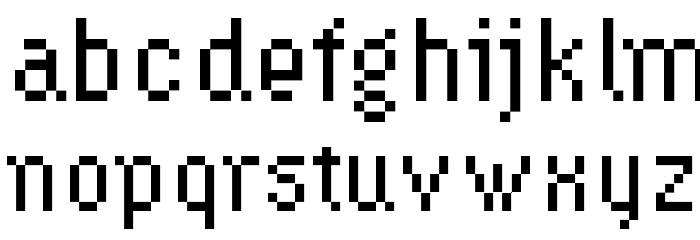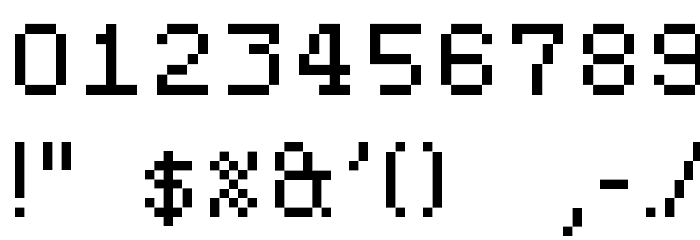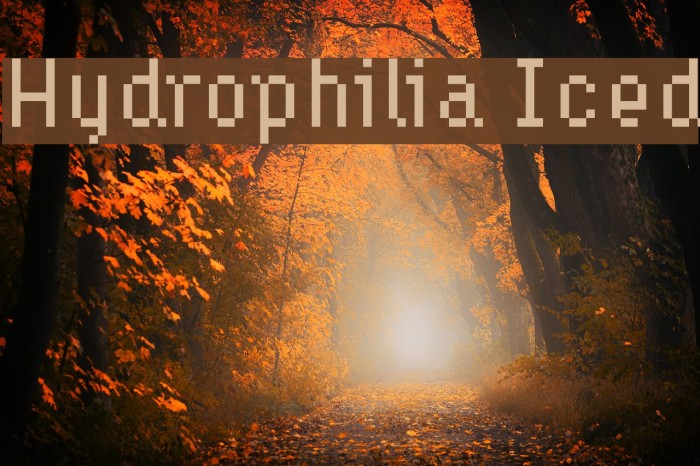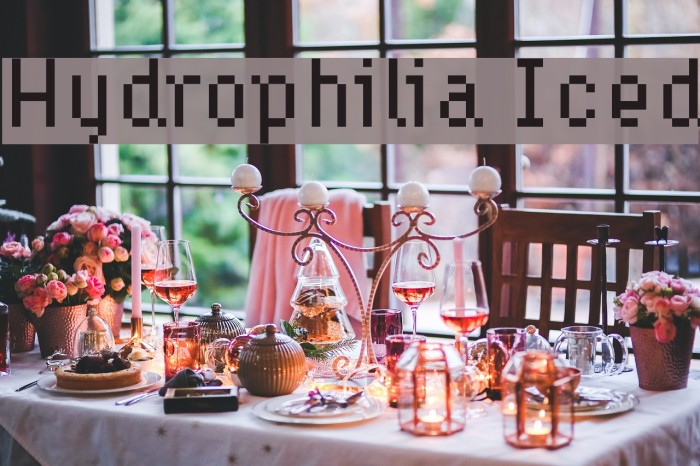
Hydrophilia Iced Font
This font features a pixelated, blocky design reminiscent of early digital displays and video games. Each character is composed of square pixels, giving it a distinctly retro and digital aesthetic. The uppercase and lowercase letters maintain a consistent height, contributing to a uniform appearance. The numerals and special characters follow the same pixelated style, ensuring cohesion across all glyphs. This font's geometric and grid-like structure makes it ideal for projects that aim to evoke nostalgia for 8-bit and 16-bit eras.
A pixelated, retro font inspired by early digital displays.
- Proposed Projects: Ideal for retro video game designs, digital art projects, and nostalgic branding.
- Overall Style: Retro
- Use Case: Logos, Headlines, Digital Art